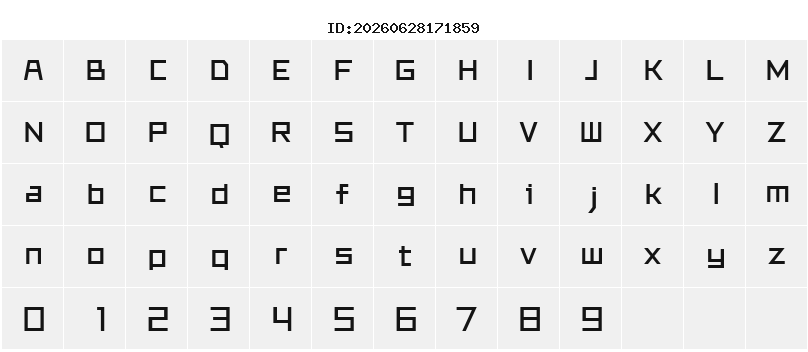
张海山锐谐体2.0-授权联系:Samtype@QQ.com Preview
About 张海山锐谐体2.0-授权联系:Samtype@QQ.com.ttf
张海山锐谐体2.0-授权联系:Samtype@QQ.com.ttf is a modern, elegant sans-serif font designed for ultimate readability and visual harmony. Perfect for branding, headlines, web design, and print materials.